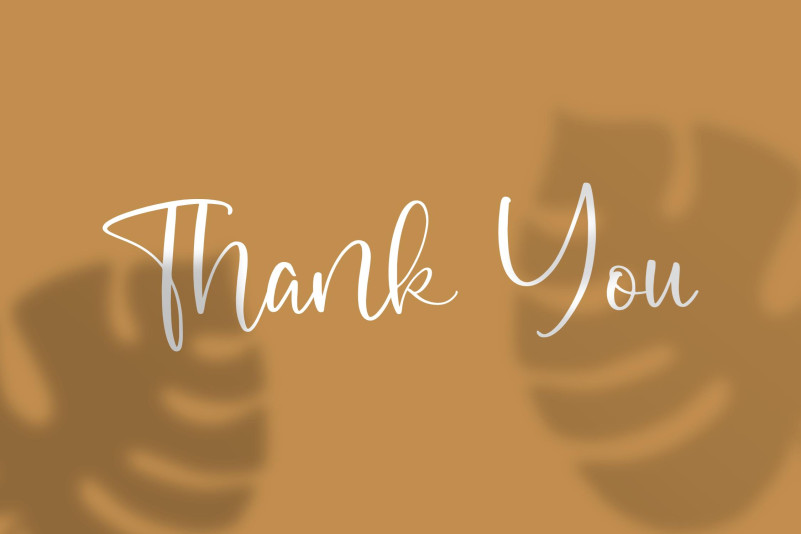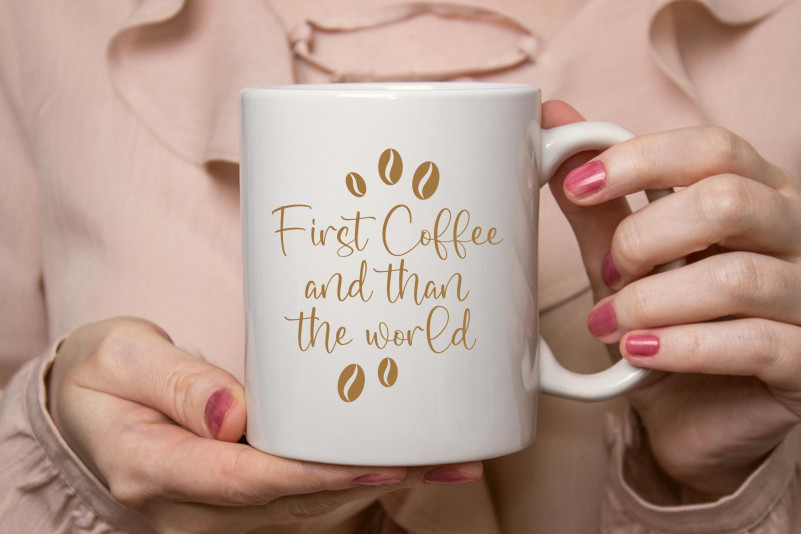
Cavendish Script Typeface is a Beautiful Script Font, suitable for any projects such as: logos, branding projects, homeware designs, product packaging, mugs, quotes, posters, shopping bags, t-shirts, book covers, name card, invitation cards, greeting cards, label, photography, watermark, special events, and all your other lovely projects that need a beautiful script taste.